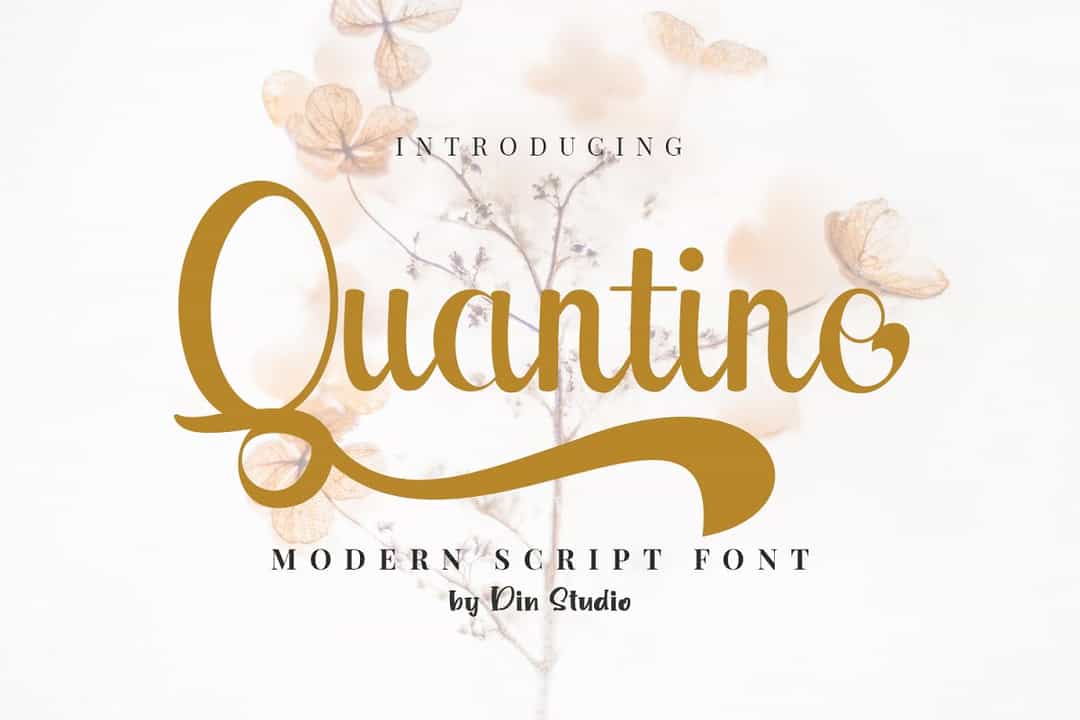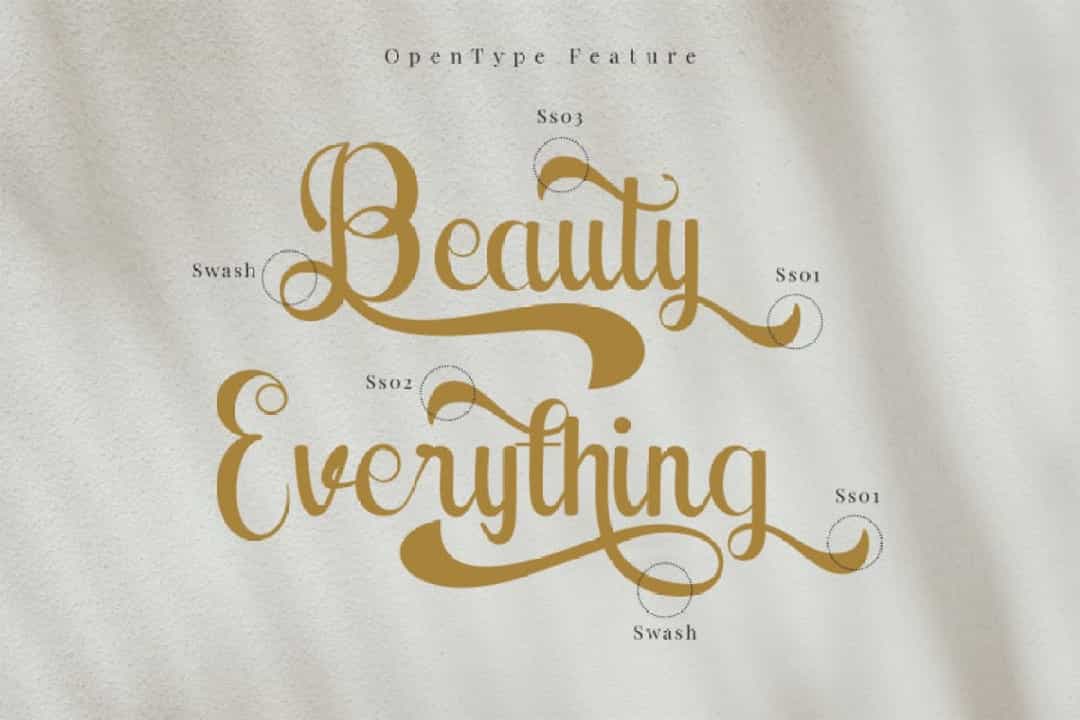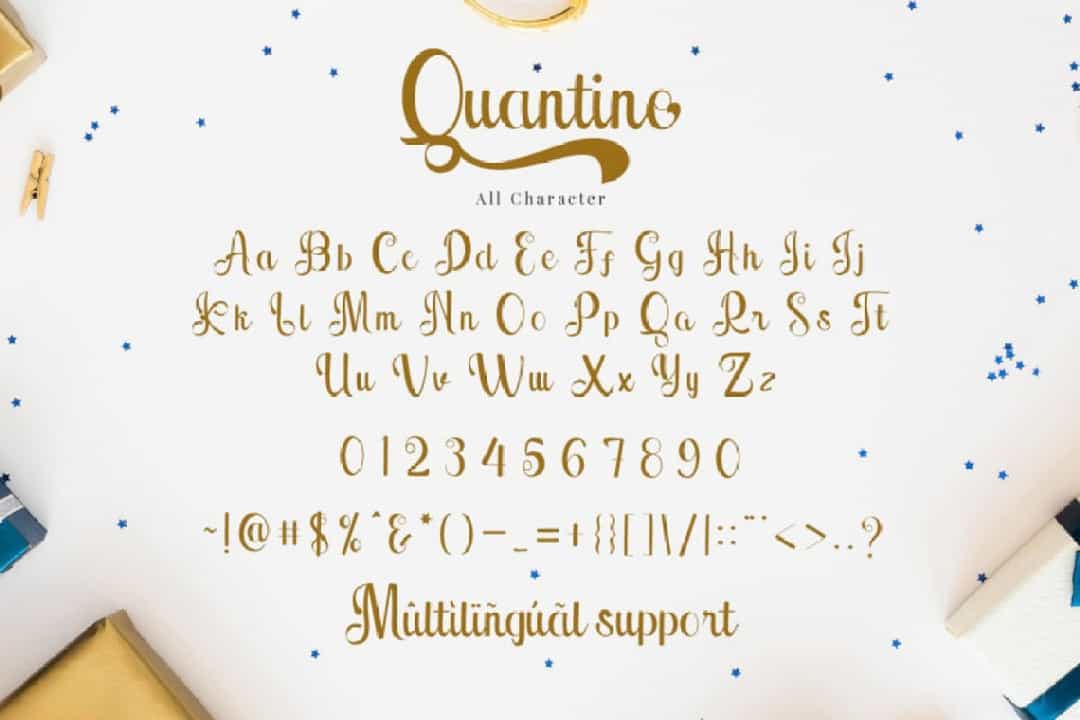
Quantine is a very sophisticated calligraphy typeface, with very polished styling. Suitable for the citation of quotes, headlines, wedding requirements, craft requirements, logotype, business logo, signature, business card title header, florist requirements etc.